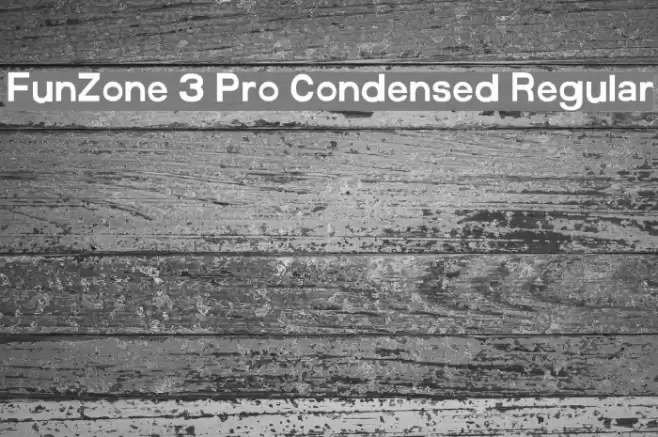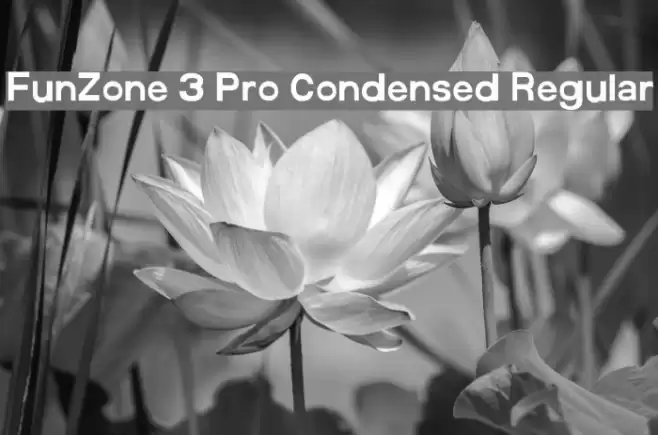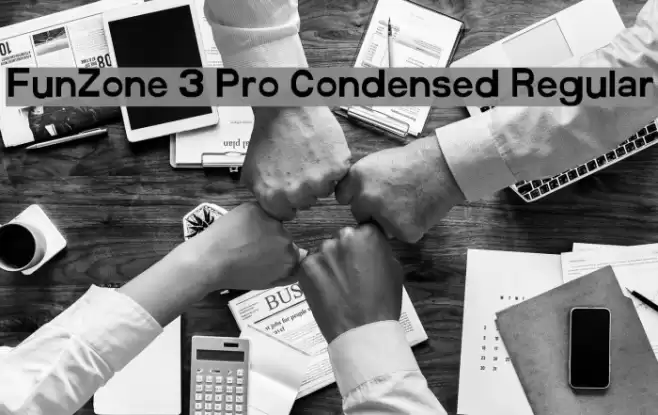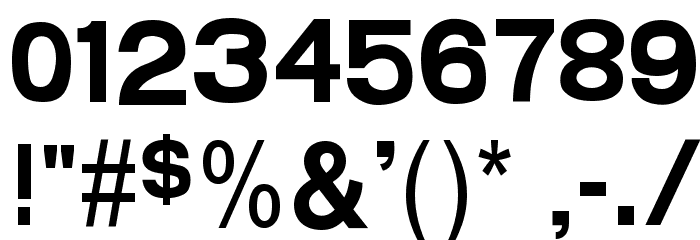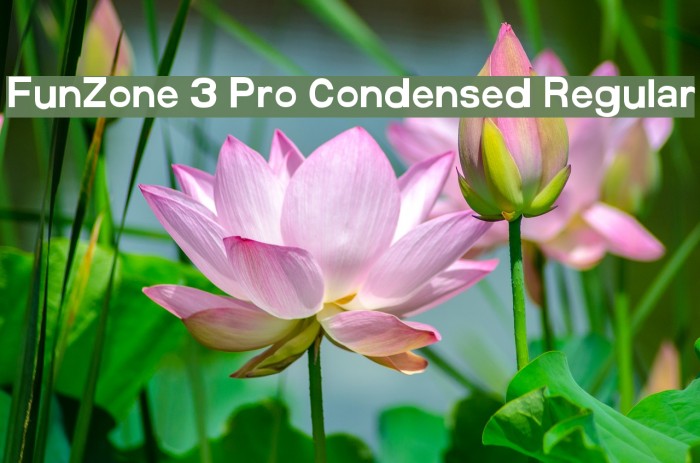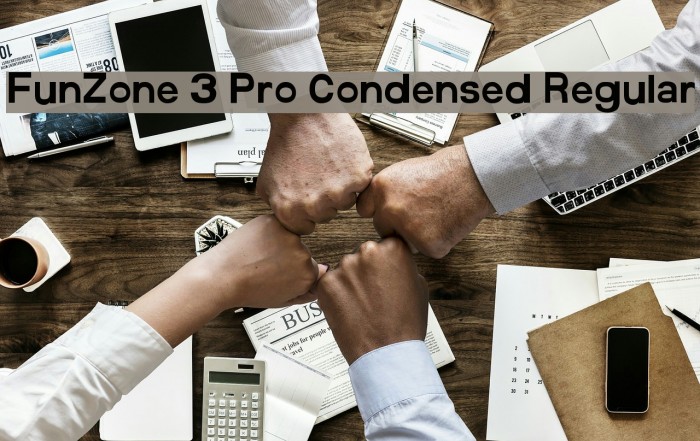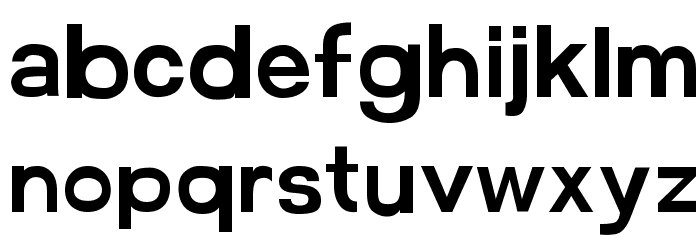
FunZone 3 Pro Condensed Regular Font
FunZone 3 Pro Condensed Regular Description
This font features a bold and modern sans-serif style with a condensed width, making it ideal for space-saving designs. The characters are clean and geometric, with uniform stroke widths that provide a consistent and professional appearance. The uppercase and lowercase letters are well-proportioned, offering excellent readability. The numerals are clear and distinct, while the special characters are designed to complement the overall aesthetic. This font is versatile and can be used in various design contexts where a contemporary and compact typeface is needed.
A bold, modern sans-serif font with a condensed width and geometric design from Uncategorized fonts.
- Proposed Projects: Ideal for branding, advertising, headlines, and digital interfaces where space is limited.
- Use Case: Headlines, Logos, Digital interfaces